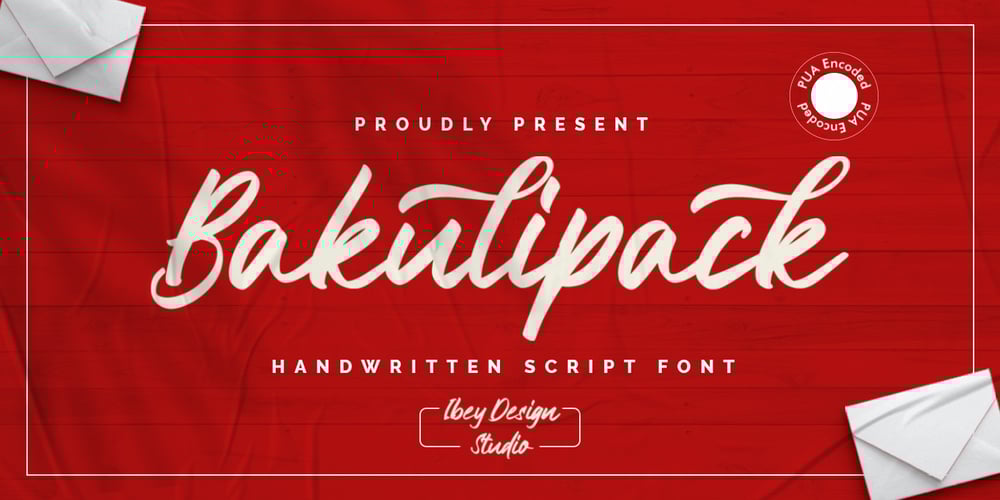
Bakulipack Font Family was designed by Ikrar Bey Khubaib and published by IbeyDesign. Bakulipack contains 1 styles and family package options. Bakulipack Handwritten Script Font is a lovely script font featuring charming, playful characters that seem to dance along the baseline. Add it to your most creative ideas, and notice how it makes them stand out.